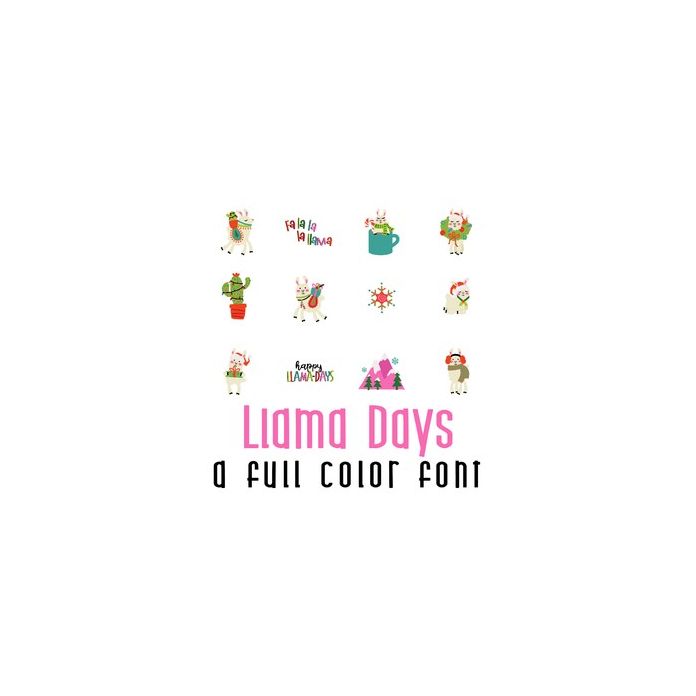
This adorable full-color doodlebat font features 26 llamas ready for the holidays. Perfect for parties, crafts, gifts, decor, classrooms, scrapbook pages, planner stickers and more!. Perfect for cards, crafts, gifts, decor, scrapbook pages, planner stickers, and more!